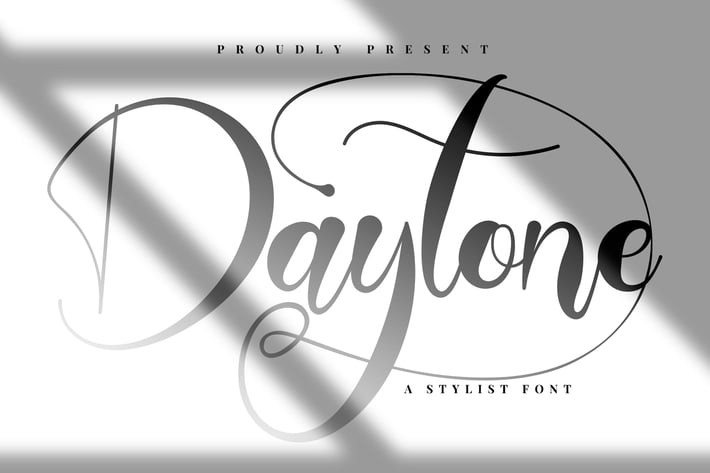
Daytone | Stylist Script Font
Daytone | Stylist Script Font with a calligraphy style, So beautiful on invitation like greeting cards, branding materials, business cards, quotes, posters, and more!